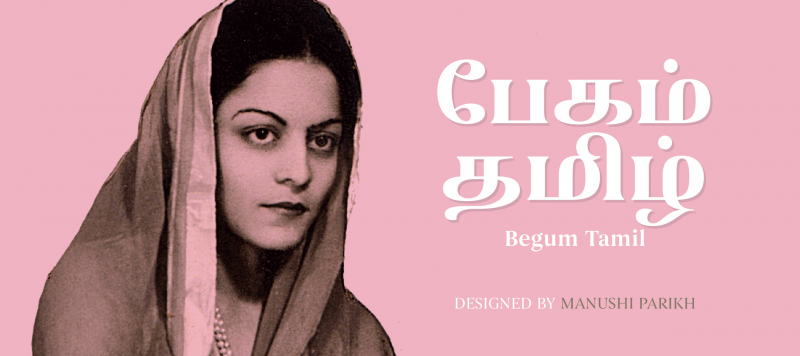
Begum Tamil is a display family optimized for Editorial Design usage. All of its vertical strokes have serifs, both in the Latin and Tamil letters – but since Begum Tamil is upright, this application is unproblematic. Although developed as a display face, its effectiveness is not only limited to headlines; Begum Tamil’s proportions are suitable for shorter-length texts in any medium. Begum Tamil is part of a larger family that support also Devanagari and Latin scripts.
Family Name Begum Tamil
Designer(s) Manushi Parikh
Classification Serif, Display